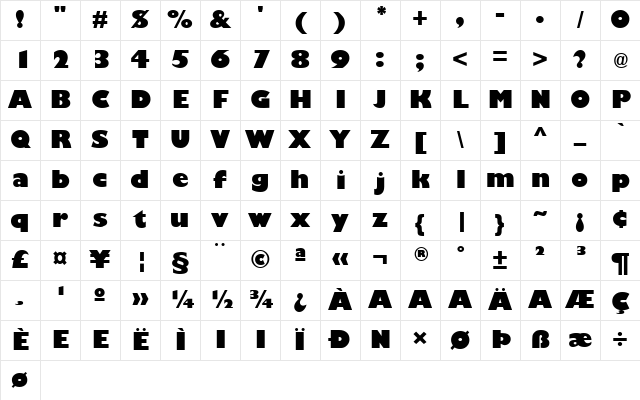
Complete Trumania EEN Plain glyph index. Displaying only characters natively supported by Trumania EEN Plain font.
Trumania EEN is a composed and adaptable typeface that performs quietly and consistently across a wide range of design contexts.
Who designed the Trumania EEN Plain font?